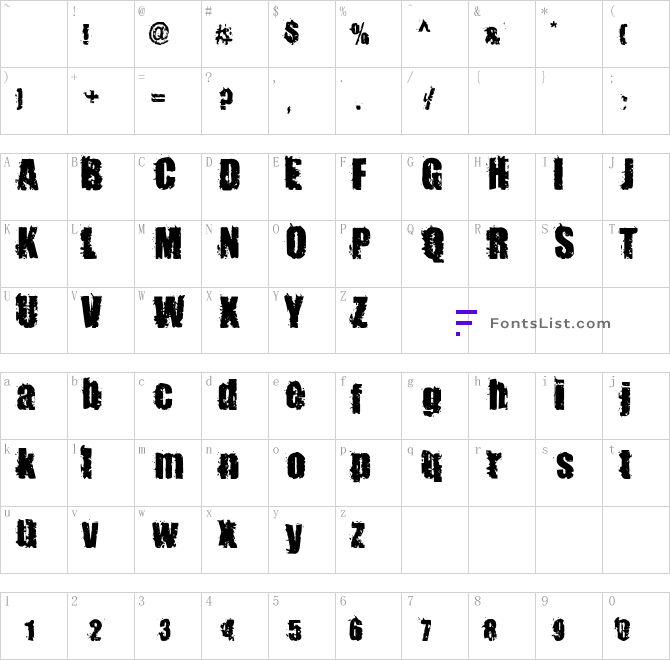
- Font Name:Beast Impacted
Beast-Impacted-Regular.ttf is a very beautiful artistic font, Beast-Impacted-Regular.ttf is widely used in the design and printing of various books and pictures,Beast-Impacted-Regular.ttf has a strong visual impact,Beast-Impacted-Regular.ttf is a commonly used font in newspapers, magazines and books, and is used in posters, e-commerce Poster design, store design, logo design, font design and other fields.Beast-Impacted-Regular.